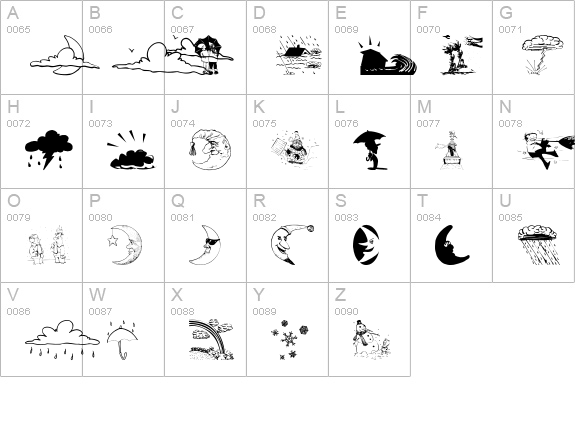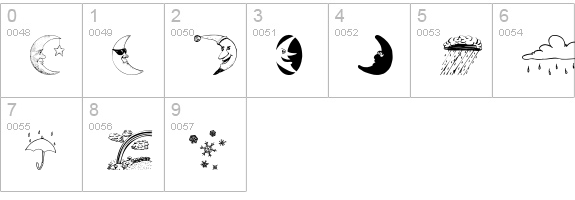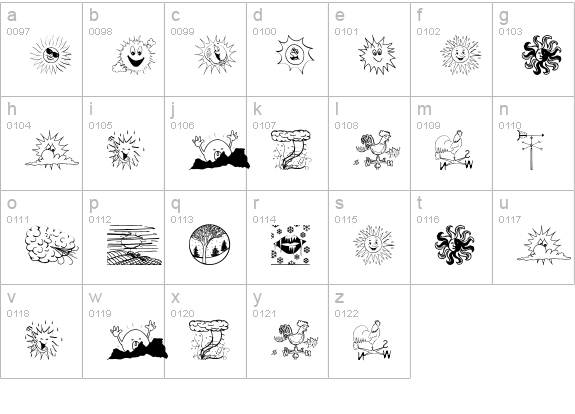
WeatherBats Font Details
Introducing WeatherBats font, a stunning and versatile typeface that brings a touch of elegance and creativity to your designs. This unique font is perfect for adding a playful and whimsical element to any project, whether it be a logo, website, or print design. WeatherBats font features a wide range of beautifully crafted characters, each inspired by various weather elements. From charming raindrops and fluffy clouds to radiant suns and gusty winds, this font captures the essence of the weather in a visually captivating way. But what makes WeatherBats font truly remarkable is that it is not only visually appealing, but also free. Yes, you read that right - this incredible font is freely available to download at FontsMarket.com. Now, you can enhance your designs with this eye-catching typeface without breaking the bank. With its clean and crisp lines, WeatherBats font is easily legible at any size, making it suitable for both large headlines and small body text. Its versatility allows it to complement a wide range of design styles, from modern and minimalistic to fun and vibrant. Whether you're a professional designer or a creative enthusiast, WeatherBats font is a must-have addition to your font library. So why wait? Head over to FontsMarket.com and download this amazing font for free. Unleash your creativity and let WeatherBats font breathe life into your next design project.